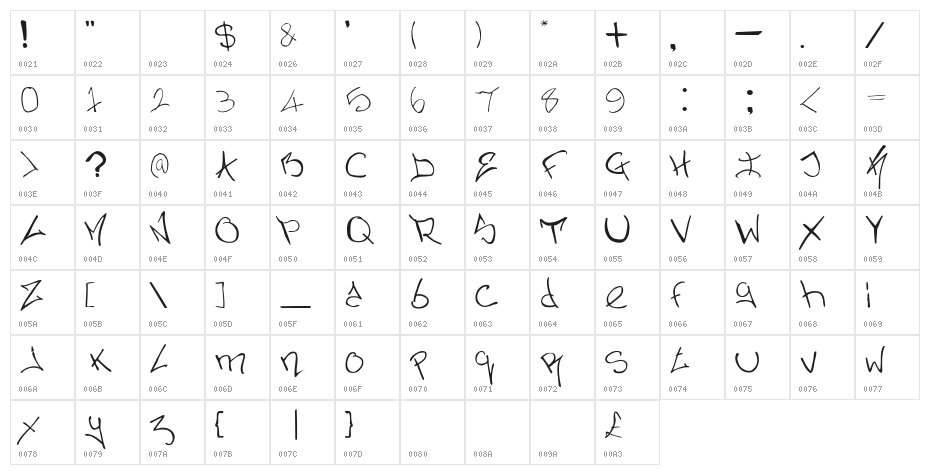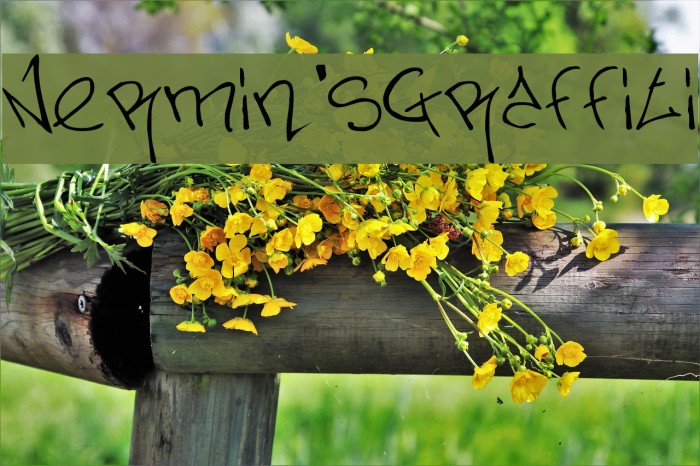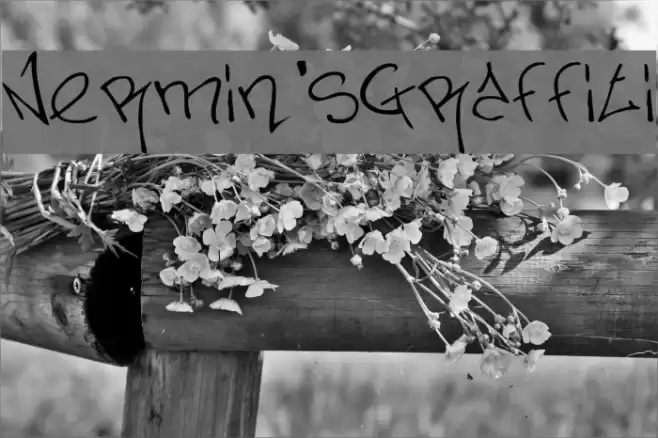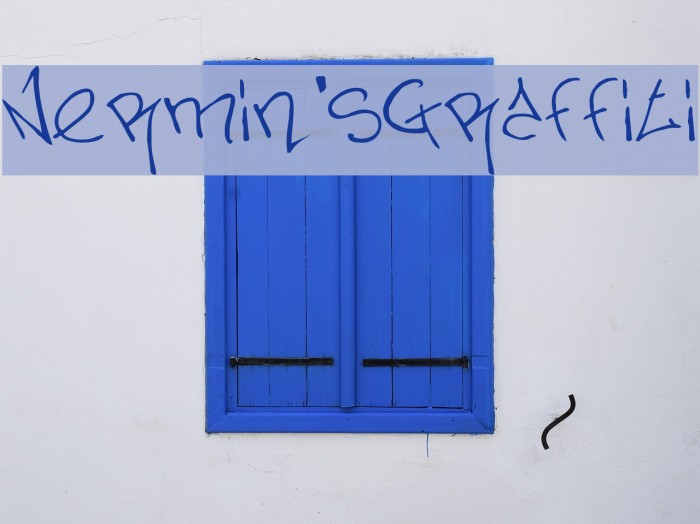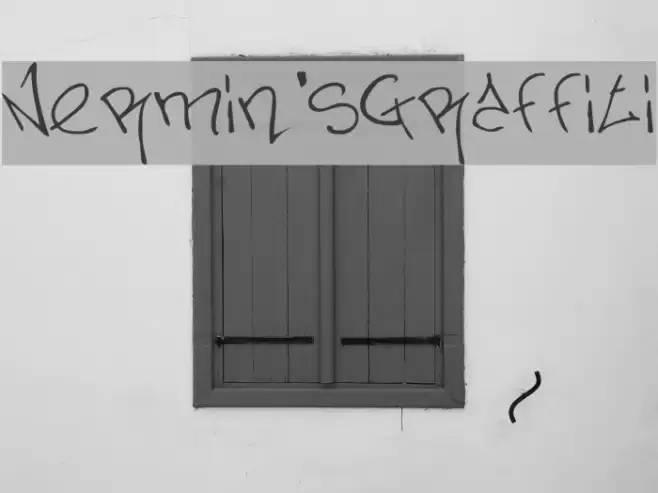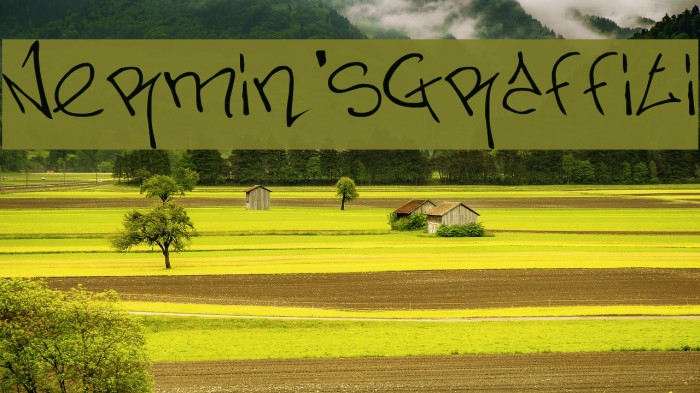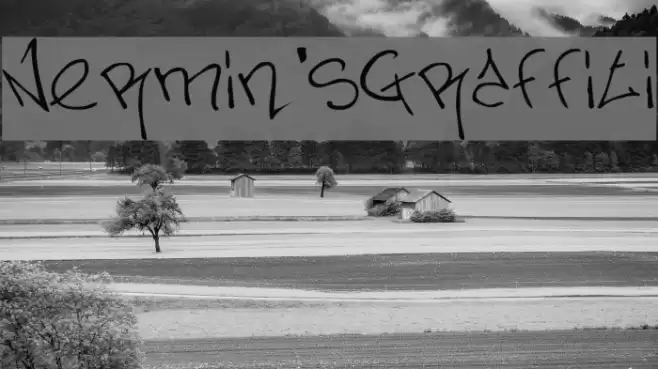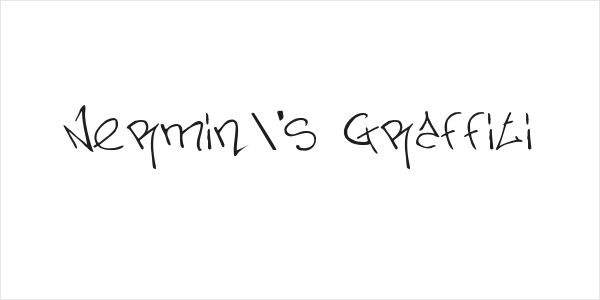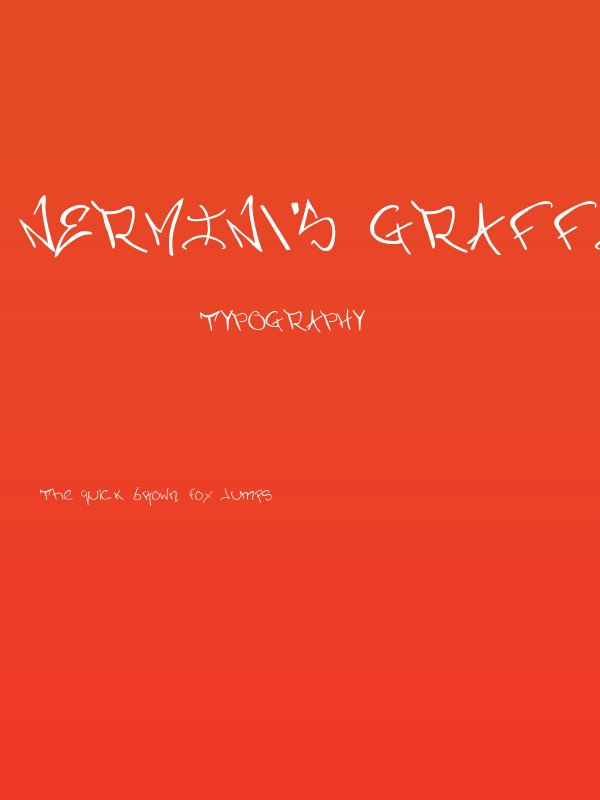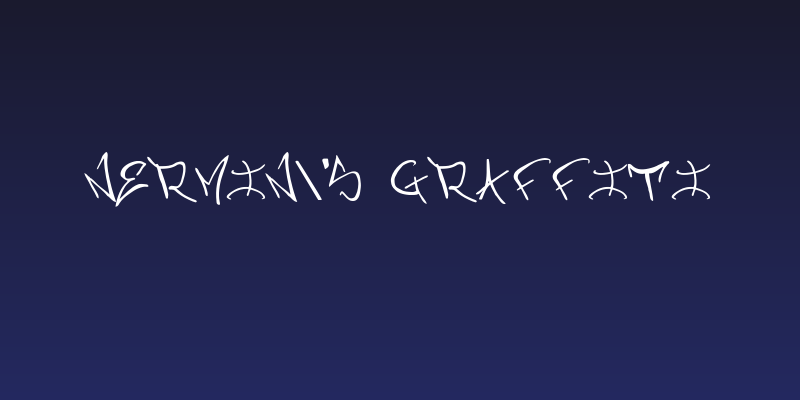
Nermin's Graffiti Font
Nermin's Graffiti Description
This graffiti-style font exudes a dynamic and urban flair, characterized by its sharp, angular lines and fluid strokes. The uppercase letters are bold and striking, with a sense of movement and energy that captures the essence of street art. The lowercase letters maintain this edgy aesthetic, offering a cohesive look across the alphabet. Numbers and special characters follow the same design principles, ensuring consistency throughout. This font is perfect for projects that require a bold, artistic touch, such as posters, album covers, or urban-themed branding.
| Overall Style | Urban, Artistic, Edgy |
| Use Case | Logos, Posters, Album Covers |
| Proposed Projects | Ideal for street art-inspired designs, music album covers, urban-themed posters, and edgy branding projects. |